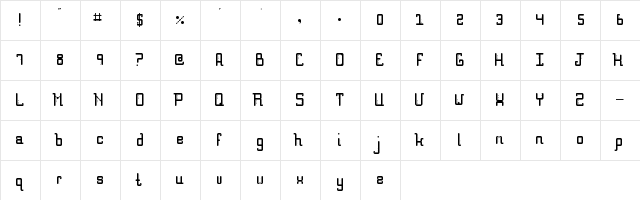
dottatella Regular
Design Context for dottatella Typeface
dottatella is rooted in pixel-grid construction, making it a natural fit for game UI, retro computing aesthetics, and digital nostalgia projects.
Well-suited to indie game interfaces, retro computing aesthetics, and pixel art-adjacent design work.
Pro Tip: Use dottatella at sizes that align with its pixel grid for the sharpest rendering — scaling to non-integer multiples can introduce unwanted blur.